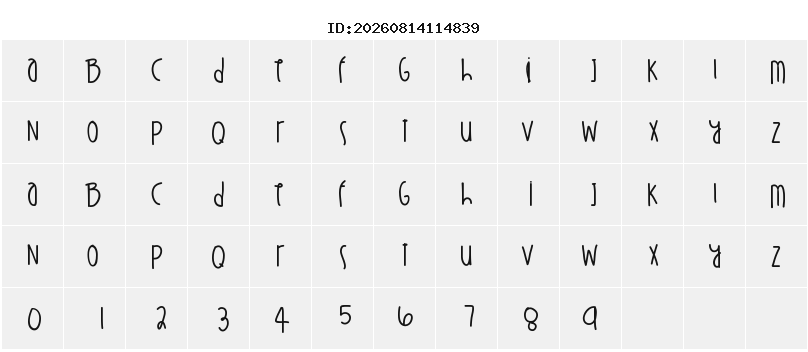
About StuntinOnYou.ttf
StuntinOnYou.ttf is a modern, elegant sans-serif font designed for ultimate readability and visual harmony. Perfect for branding, headlines, web design, and print materials.